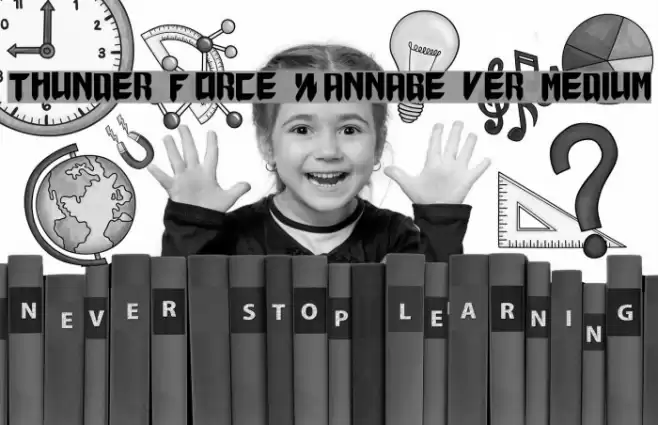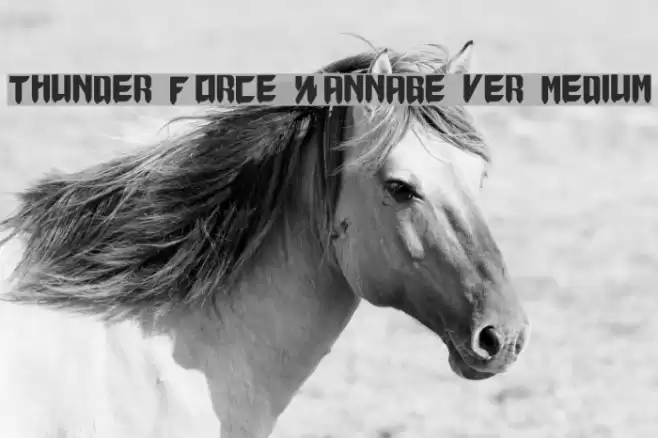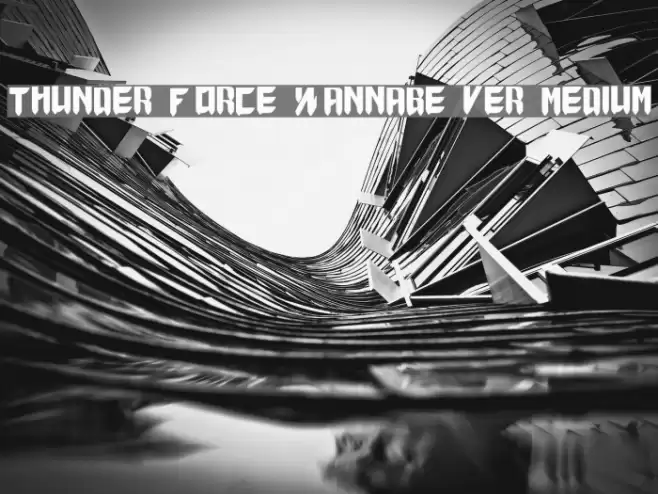
Thunder Force Wannabe ver.1.1 Medium Font
Thunder Force Wannabe ver.1.1 Medium Description
This font features a bold, futuristic design with sharp, angular edges and a distinct geometric style. The uppercase letters are particularly striking, with a blocky appearance that conveys strength and modernity. The lowercase letters maintain the same angular aesthetic, ensuring consistency throughout the typeface. The numbers and special characters are designed to match the boldness and geometric nature of the alphabet, making this font suitable for projects that require a strong visual impact. Its unique style is reminiscent of sci-fi themes and digital interfaces, making it ideal for creative and tech-oriented designs.
A bold, futuristic font with sharp, angular edges and a geometric style from Uncategorized fonts.
- Proposed Projects: Ideal for sci-fi themed designs, tech branding, video game titles, and digital interfaces.
- Overall Style: Futuristic